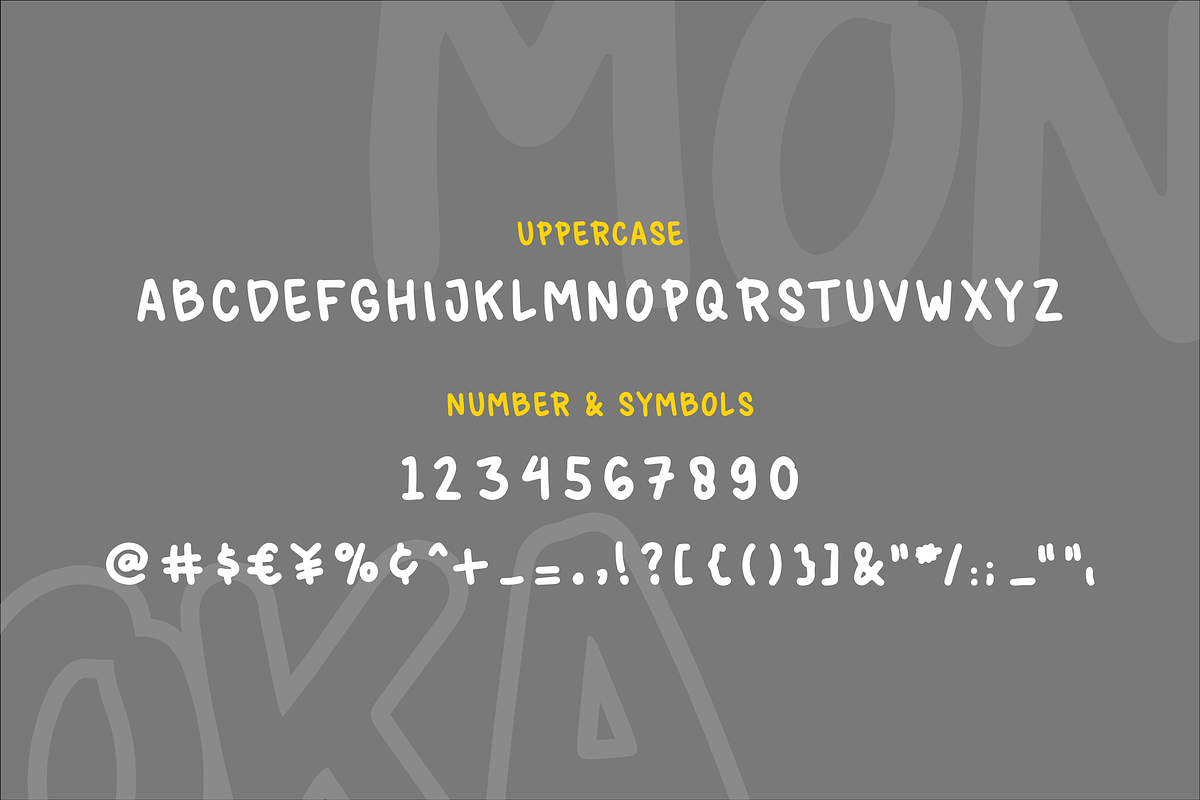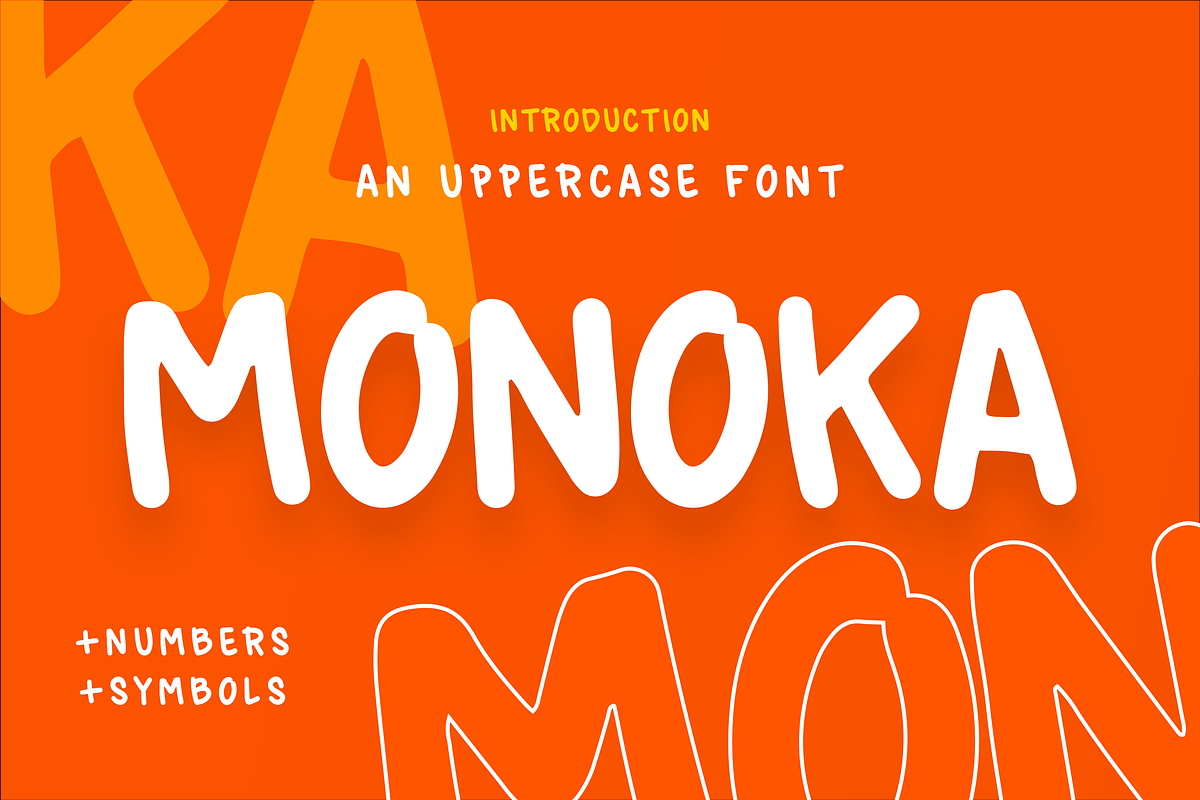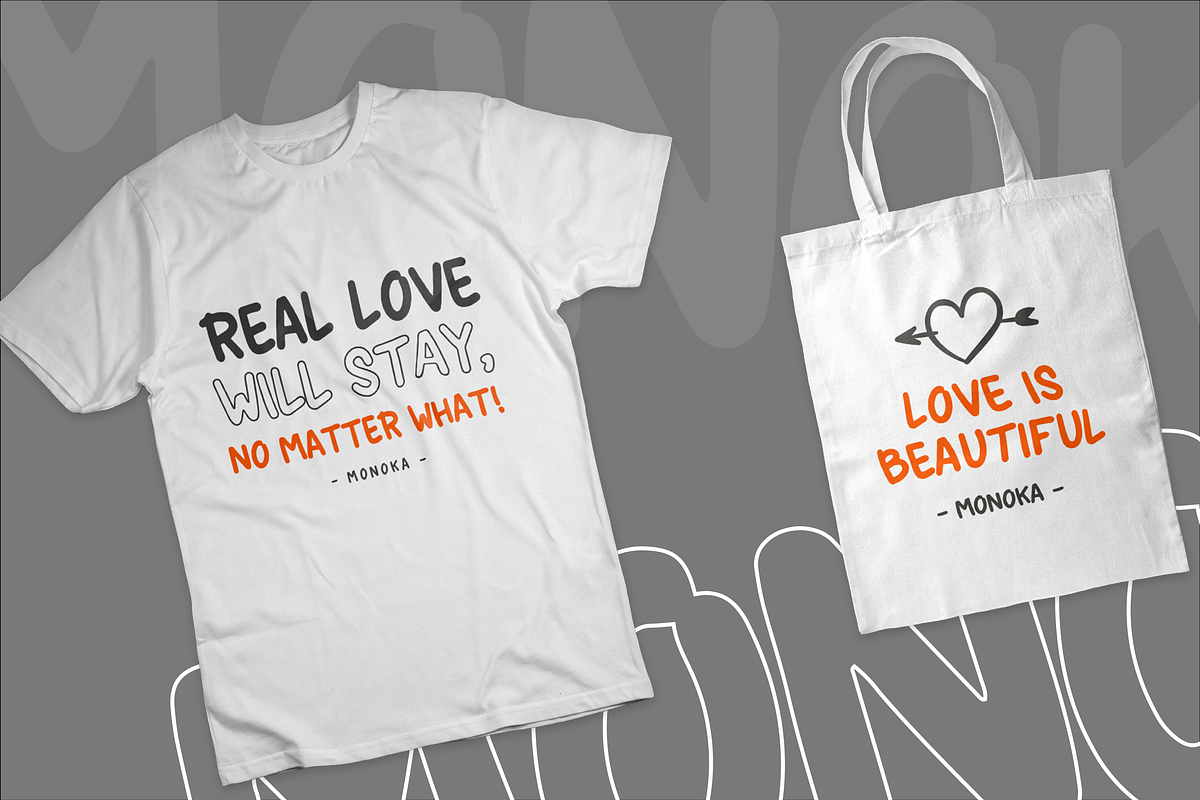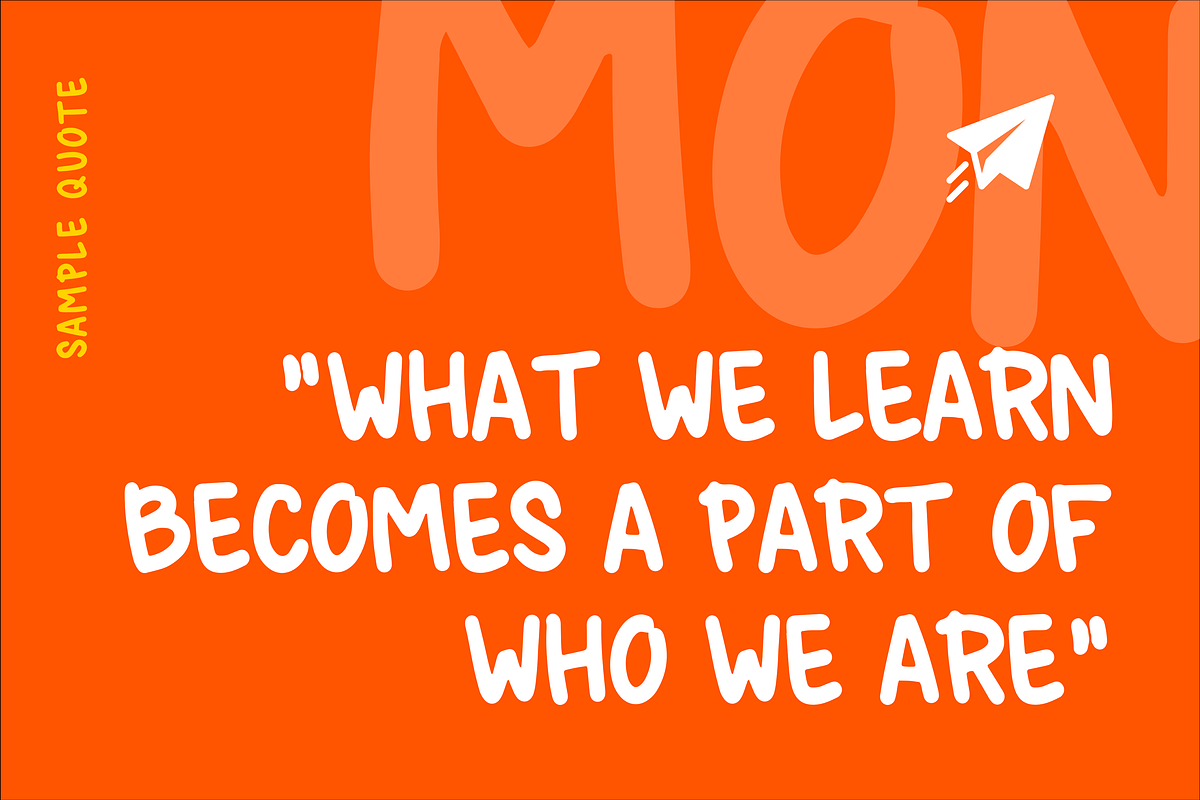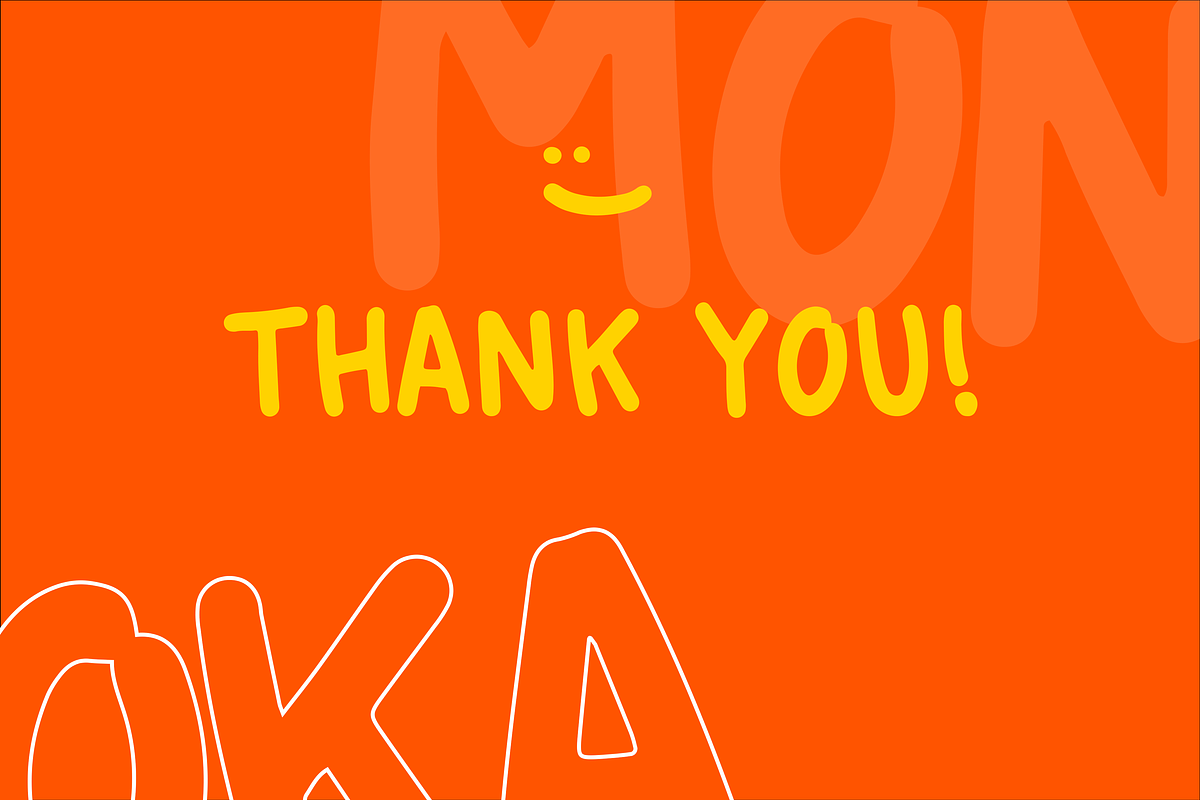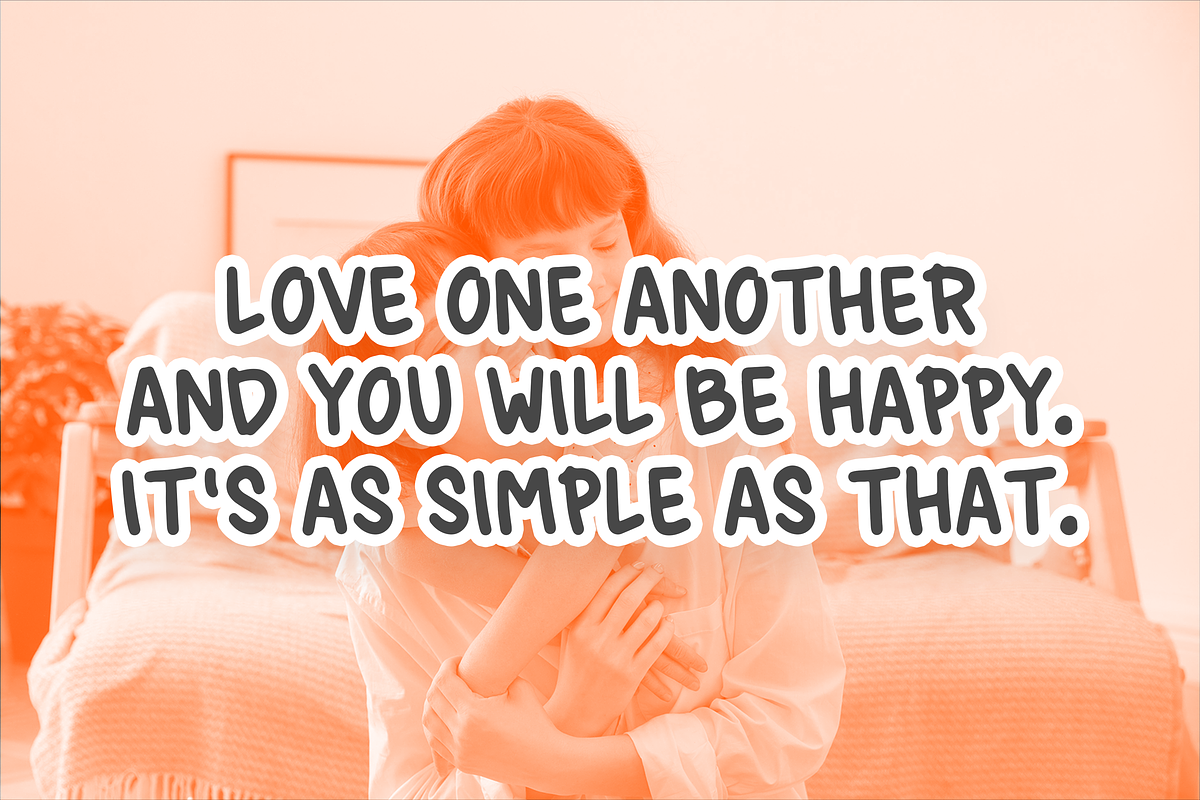
Monoka - Handwritten Uppercase Font
Introducing, Monoka - a handwritten uppercase font. Simple bold font, Awesome Everyday will be perfect for stickers, greeting cards, logos, posters or anything that requires a fun and happiness look!